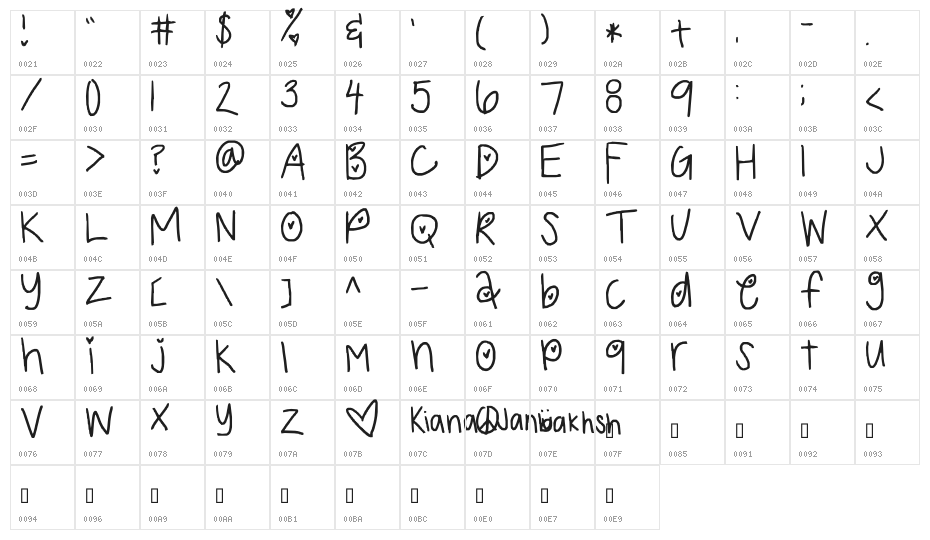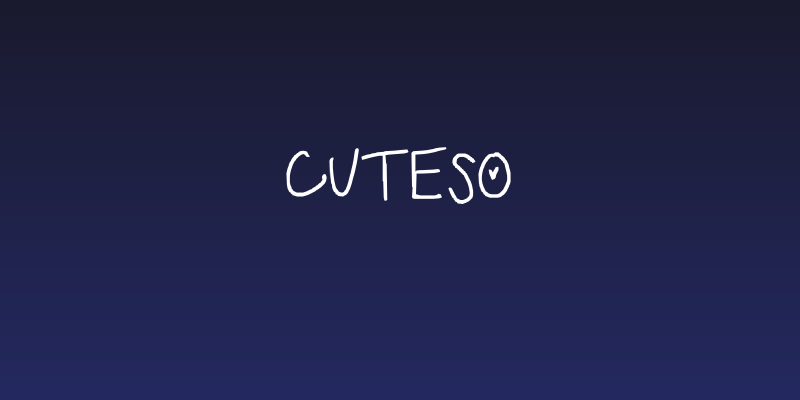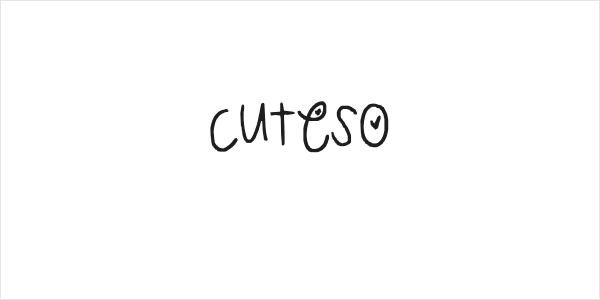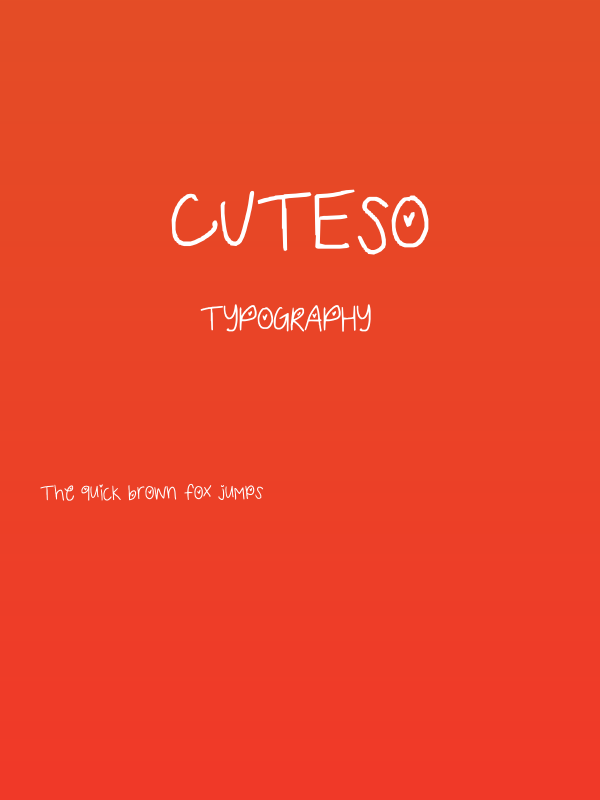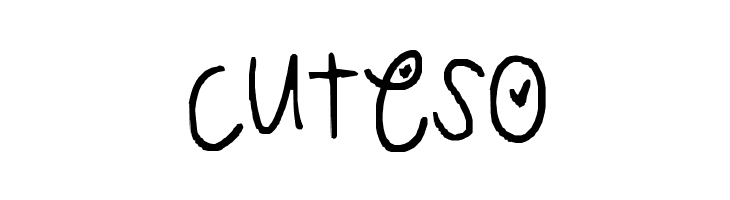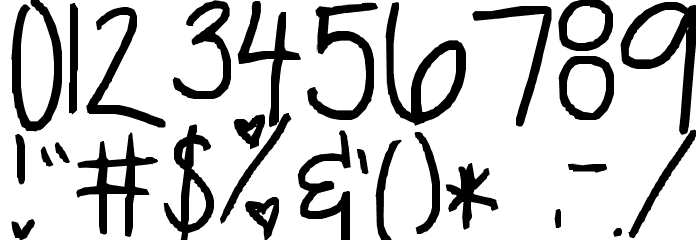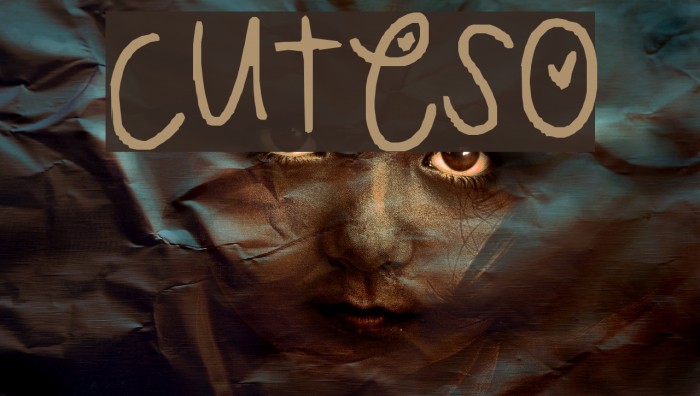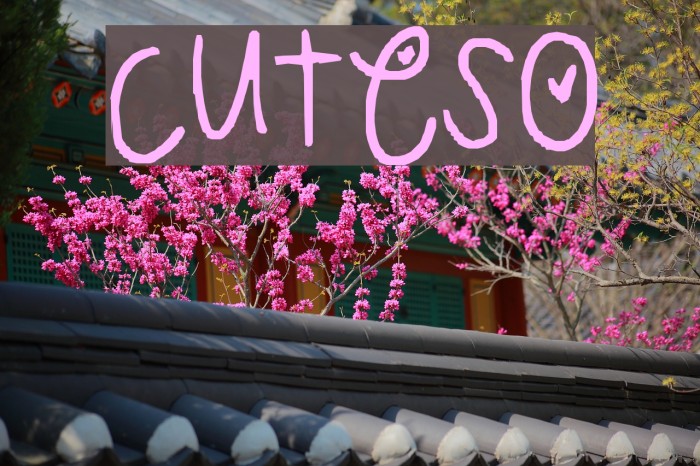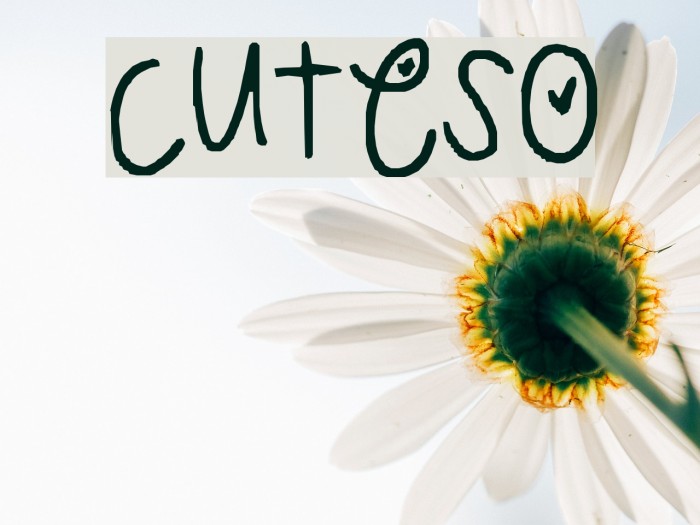
cuteso Font
cuteso Description
This playful and whimsical font features a handwritten style with a unique twist. Each letter is crafted with a casual, freeform approach, giving it a charming and approachable feel. The uppercase letters are bold and slightly irregular, while the lowercase letters maintain a consistent flow, adding to the font's overall friendly appearance. Notably, the font incorporates heart shapes within some of the letters, enhancing its playful and endearing quality. The numbers and special characters follow the same handwritten style, ensuring a cohesive look across all elements. This font is perfect for projects that require a personal touch or a fun, informal vibe.
| Use Case | Logos, Headlines, Informal Invitations |
| Proposed Projects | Ideal for greeting cards, children's books, playful branding, and social media graphics. |